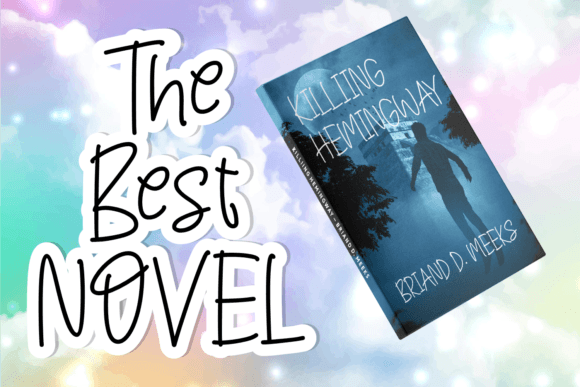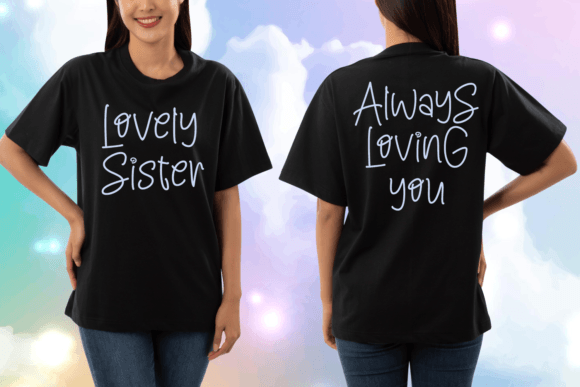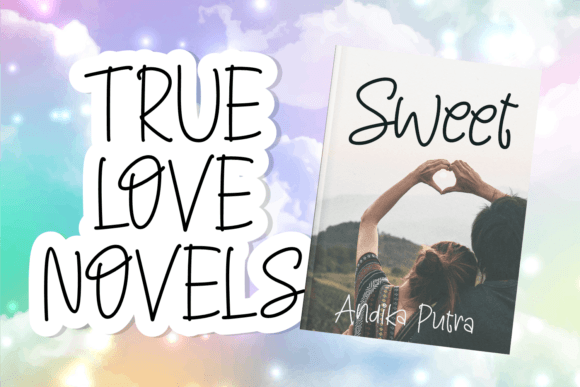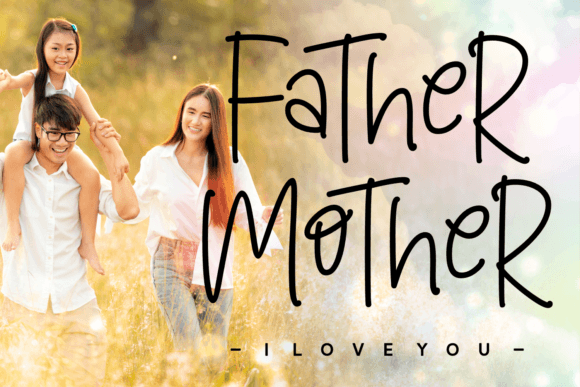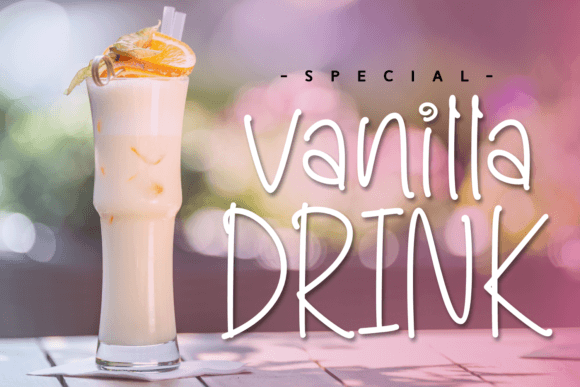
Introduction to Book Smile Font
Book Smile is a playful, thin script font that is great for adding a light, whimsical touch to any project.
Its thin lines and delicate curves make it a great choice for headlines and logos, adding a fun and carefree feel to any design This font is PUA encoded which means you can access all glyphs and swashes effortlessly.